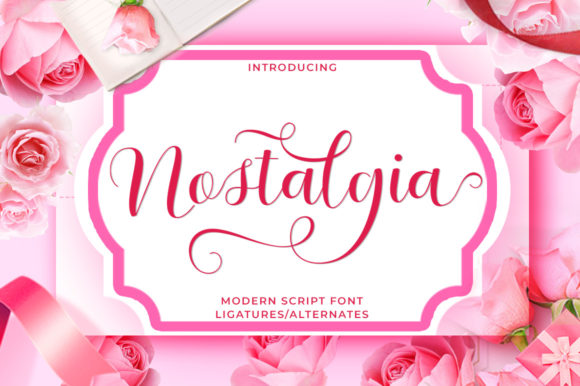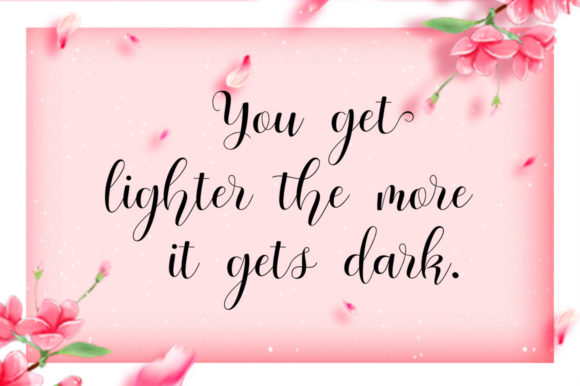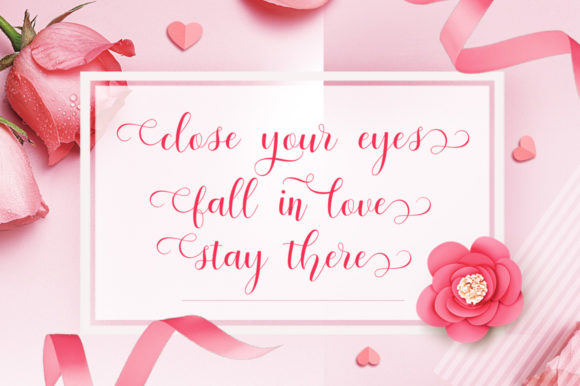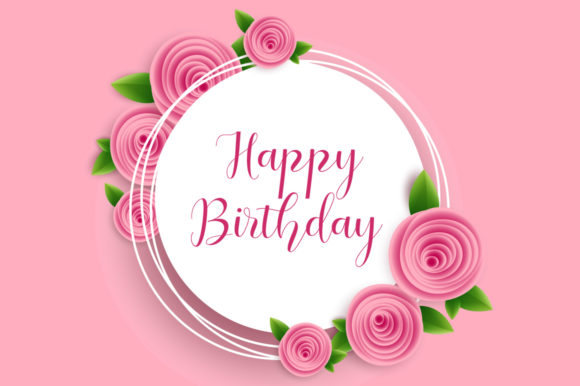
Nostalgia Script Font
About Nostalgia Script Font
Nostalgia is an incredibly bold and charming handwritten font that will turn any design idea into a true standout.